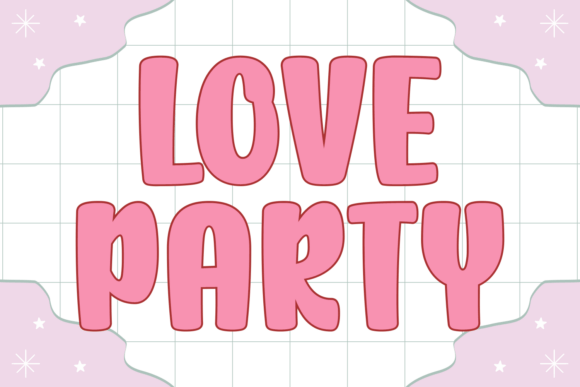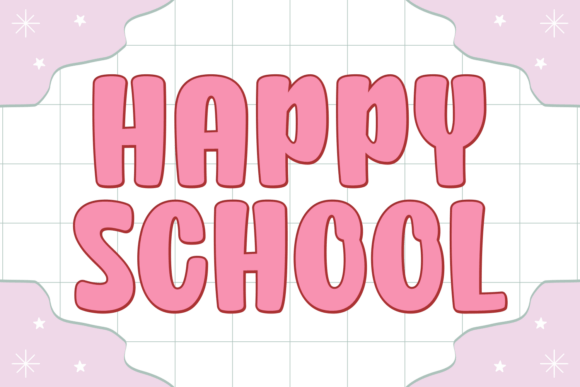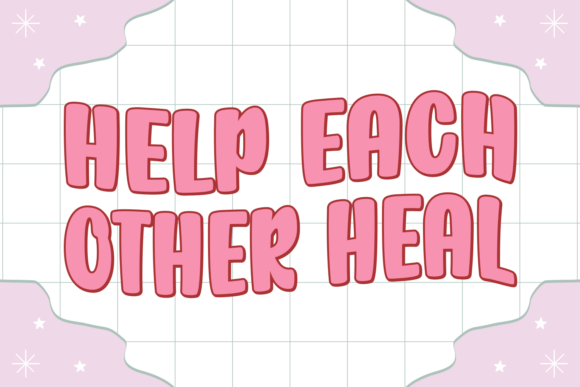
Bright Wishes Font
Introducing “Bright Wishes” – a dynamite blend of retro vintage charm and groovy aesthetics. This unique and bouncy font encapsulates the carefree spirit of the 70s and 80s as well as an playful sprinkle of modern quirkiness, making it the perfect choice for those aiming to jazz up their crafting projects. Bright Wishes offers a Smooth and simple style that’s a delight for the senses, making it superbly suited for your Cricut or Silhouette endeavors.With an unapologetically youthful air, this kids font comes to life in its own delightful whimsy; expect a smorgasbord of bubbly fun and lighthearted nostalgia with every printed letter and number. Featuring gentle curves and contours stylistically reminiscent of a feminine silhouette, this font is charmingly girly, taking you on a magical journey reminiscent of frolicking unicorns in distant, fantasy lands.Bright Wishes flourishes in display, makes a splash as a sticker, and serves as an outstanding choice for cutting Procreate projects. Equally, its sublimation-friendly nature ensures it leaves a lasting impression in your crafting pursuits. With an unabashedly cute personality, this one-of-a-kind crafty font introduces a delightful playfulness to planners, elevating the mundane into the realm of whimsical creativity. Step up your typography game with the enchanting allure of Bright Wishes!